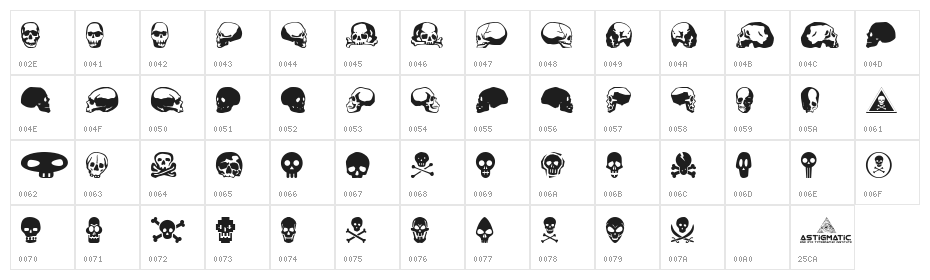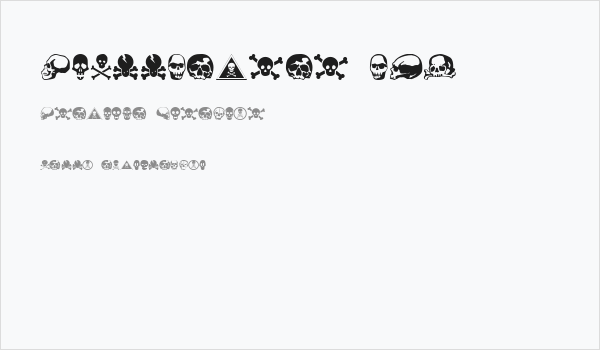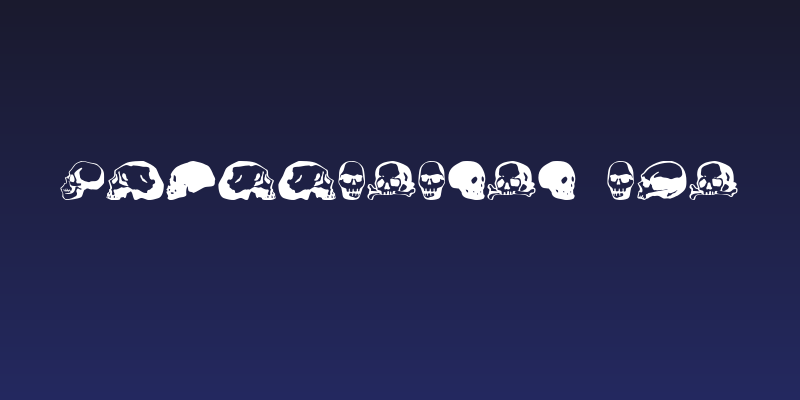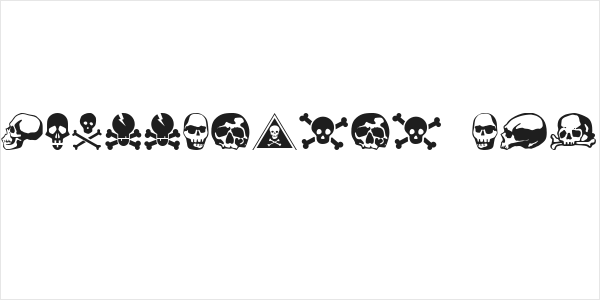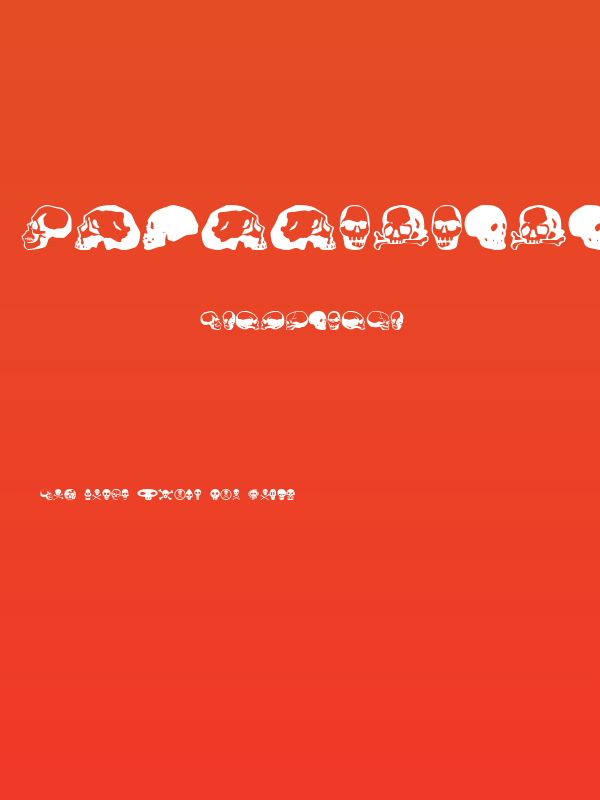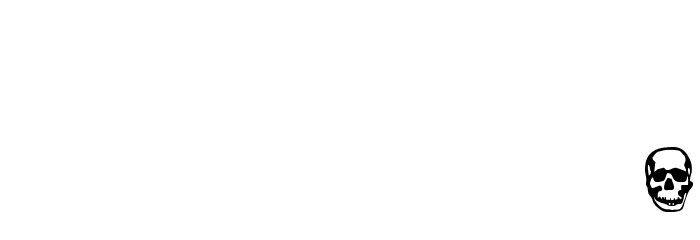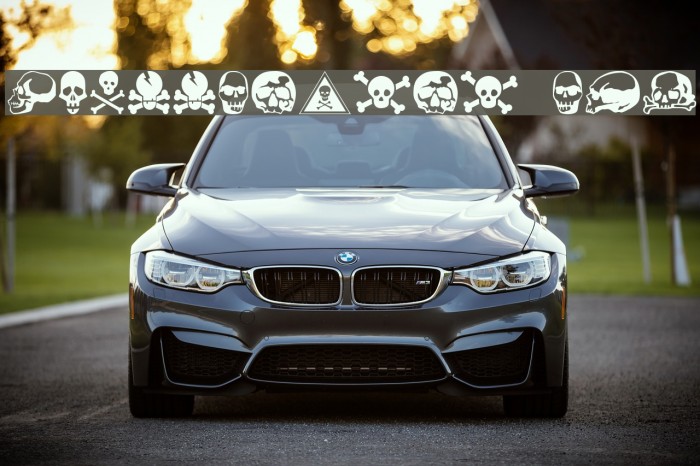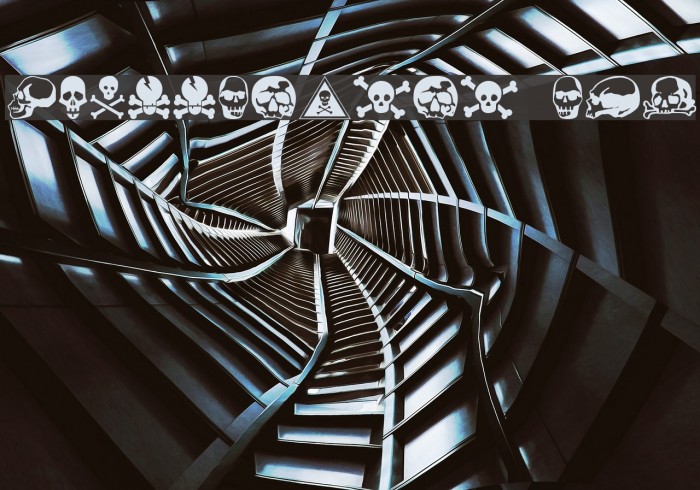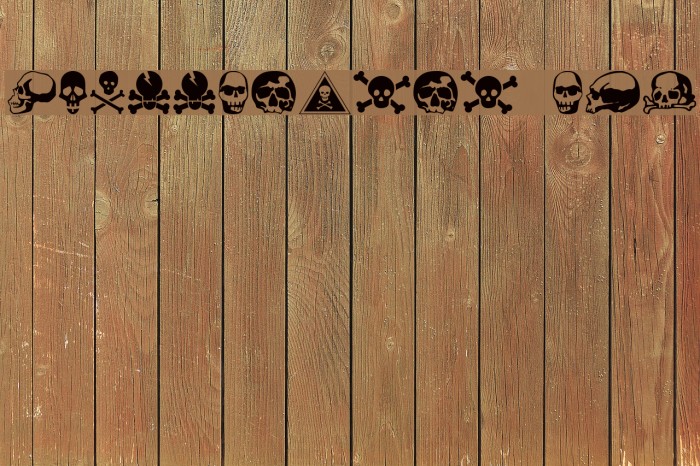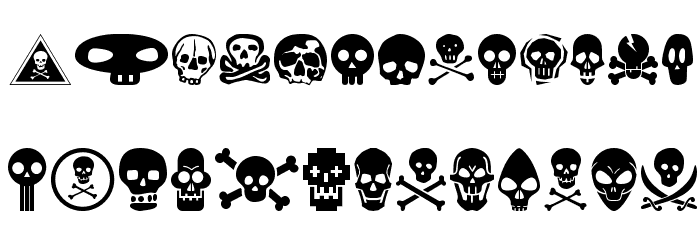
SkullBearer AOE Font
SkullBearer AOE Description
A decorative display font composed entirely of various skull and crossbones illustrations, ranging from realistic to stylized and cartoonish designs, with each character representing a unique skull motif.
| Overall Style | Decorative, Thematic, Edgy |
| Use Case | Logos, Posters, Themed Graphics, Event Flyers |
| Proposed Projects | Halloween invitations, horror posters, band logos, themed party flyers, video game graphics, tattoo designs. |